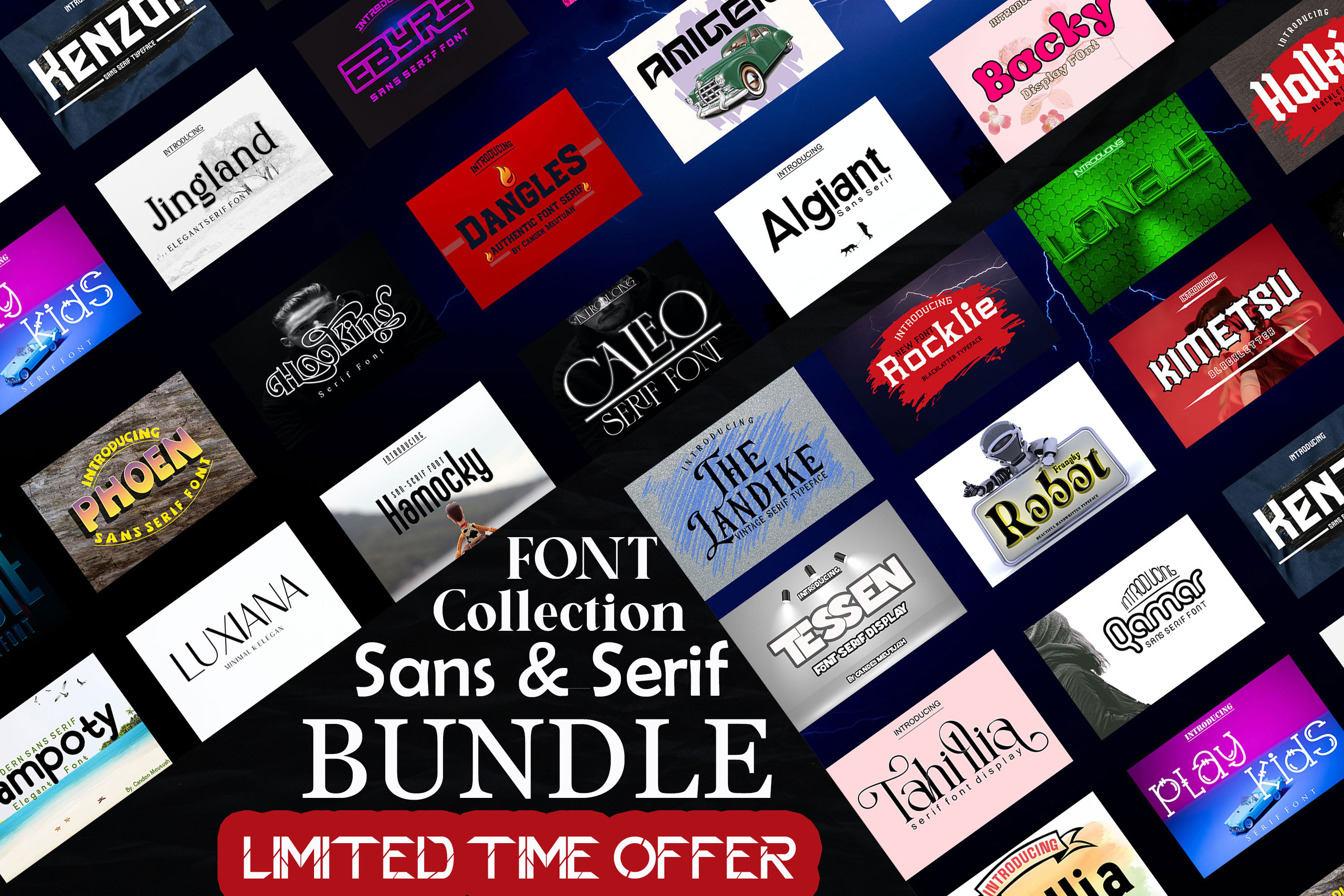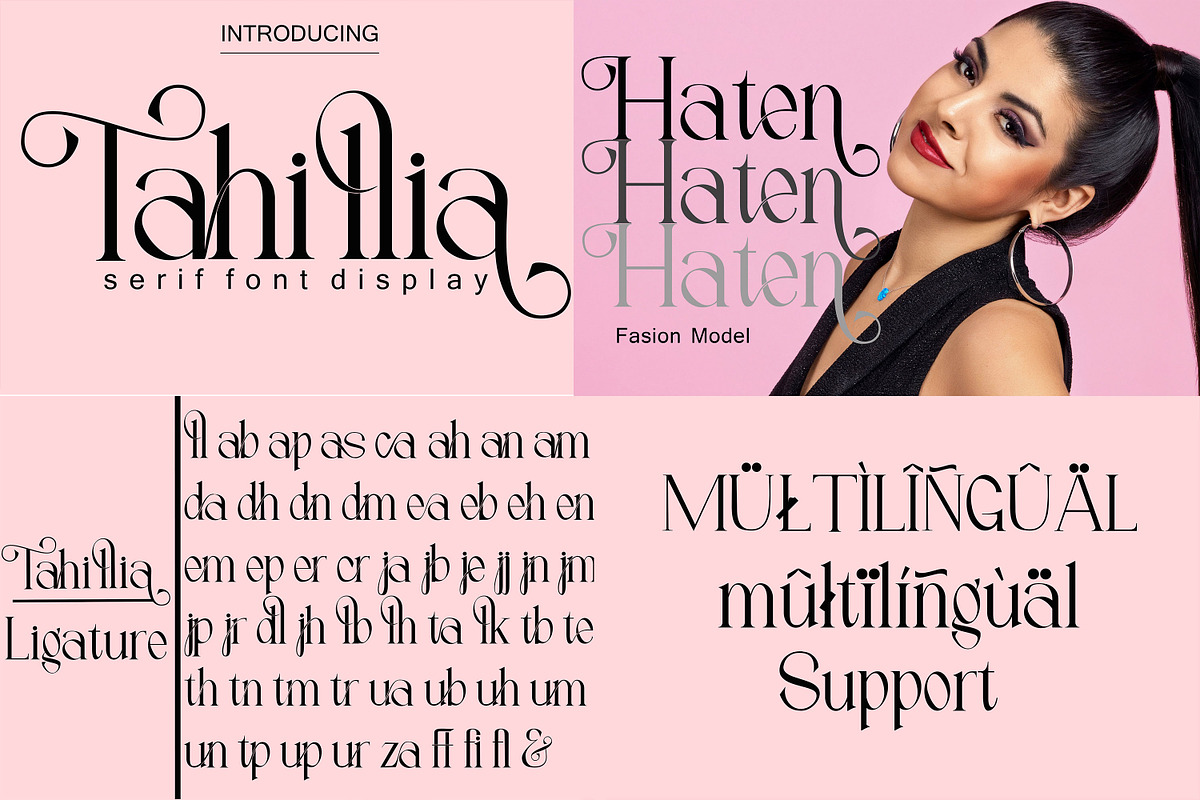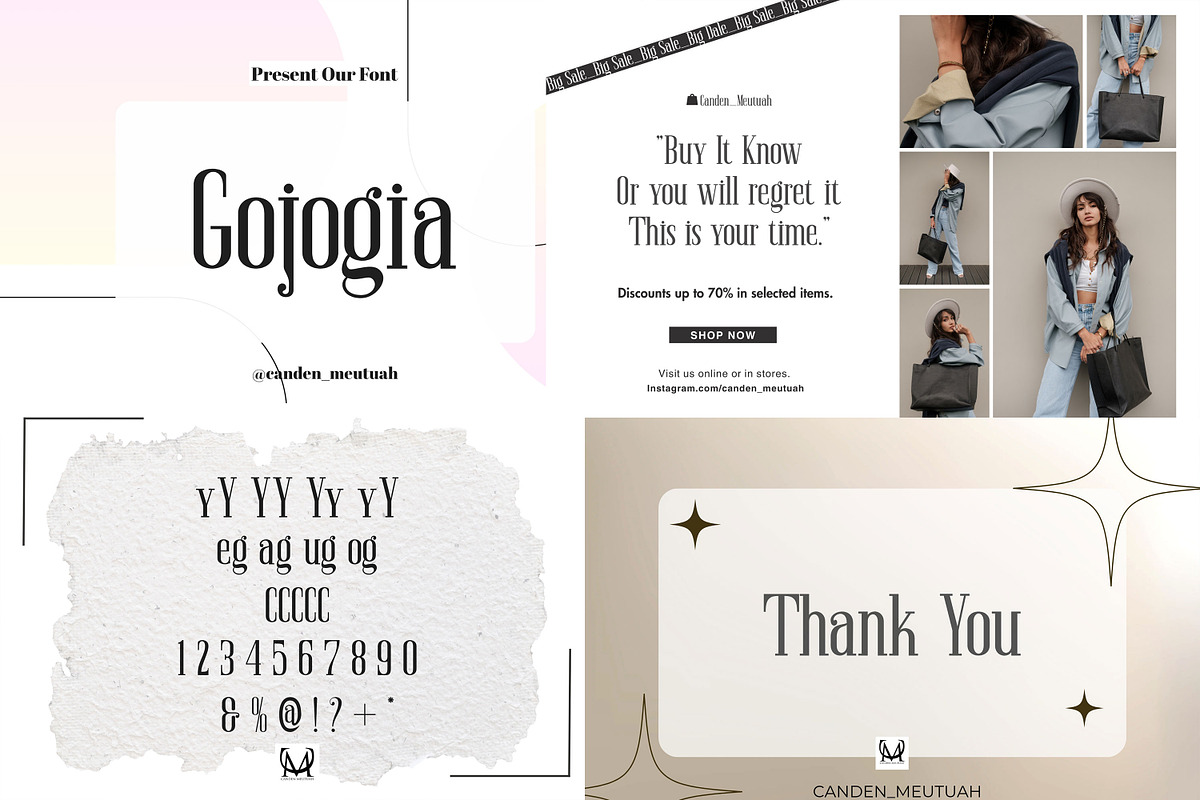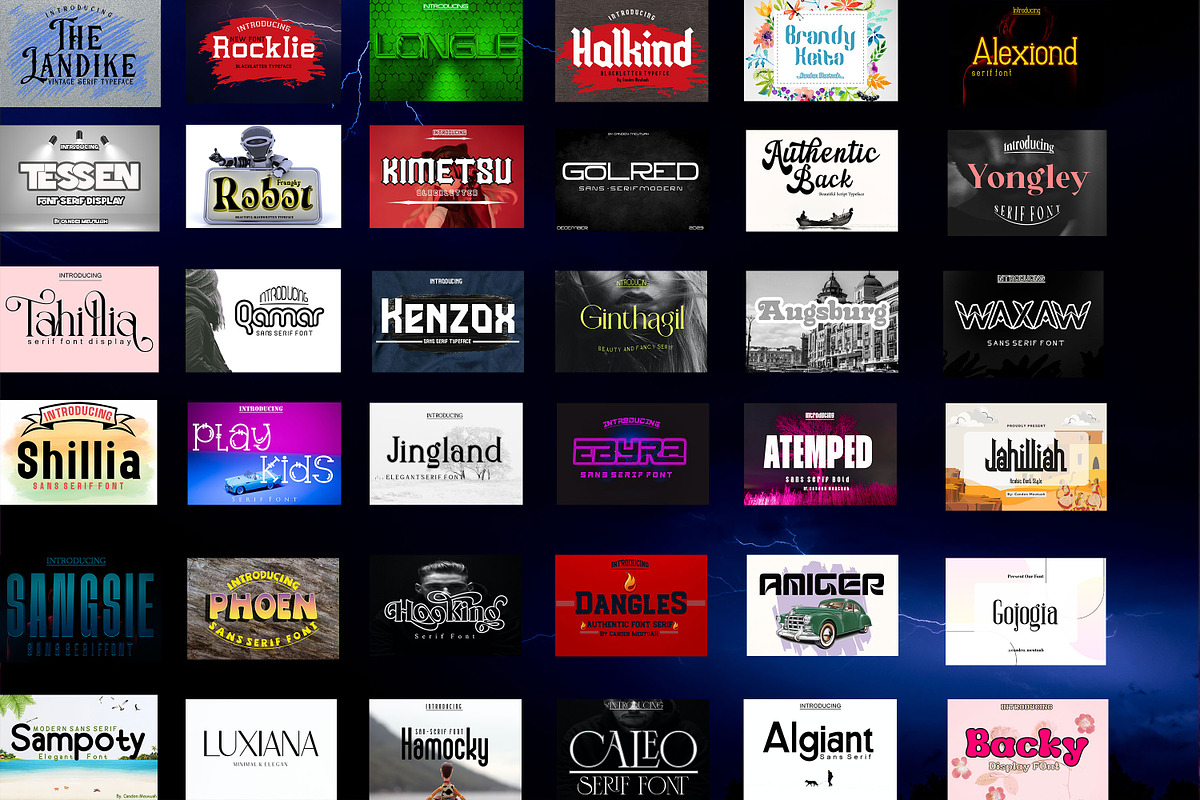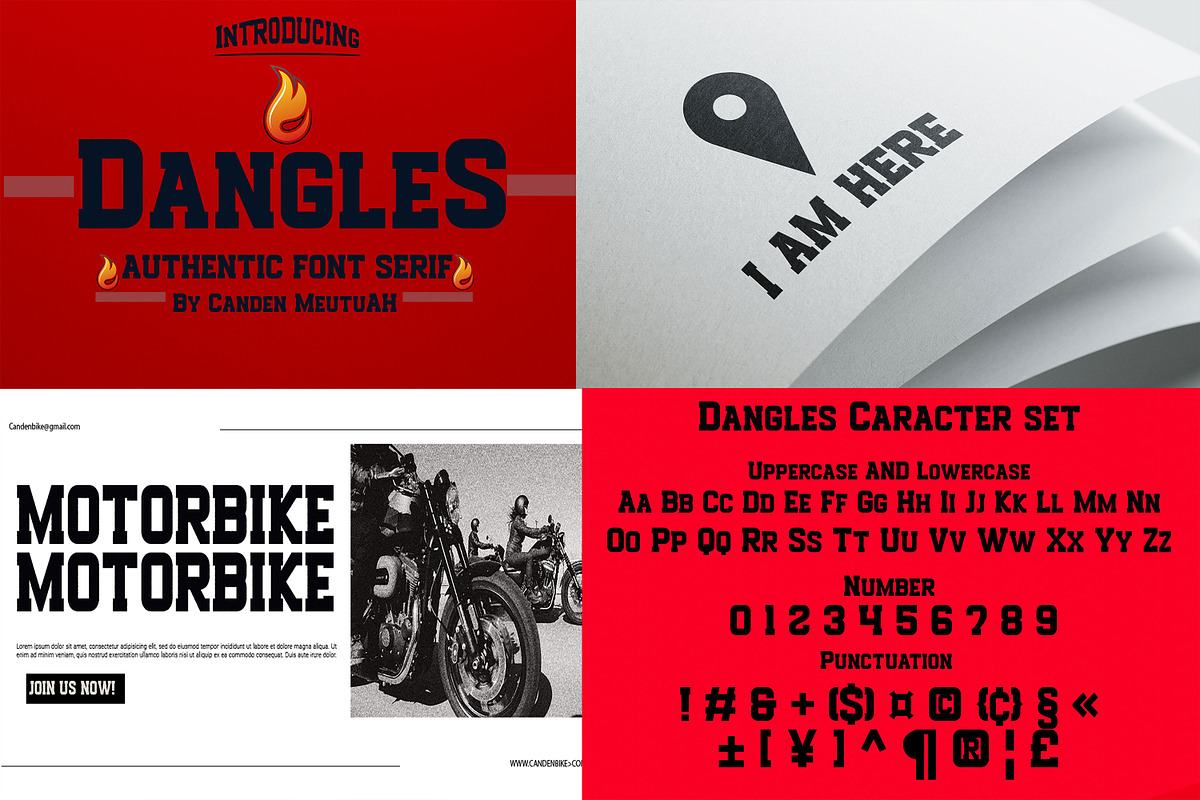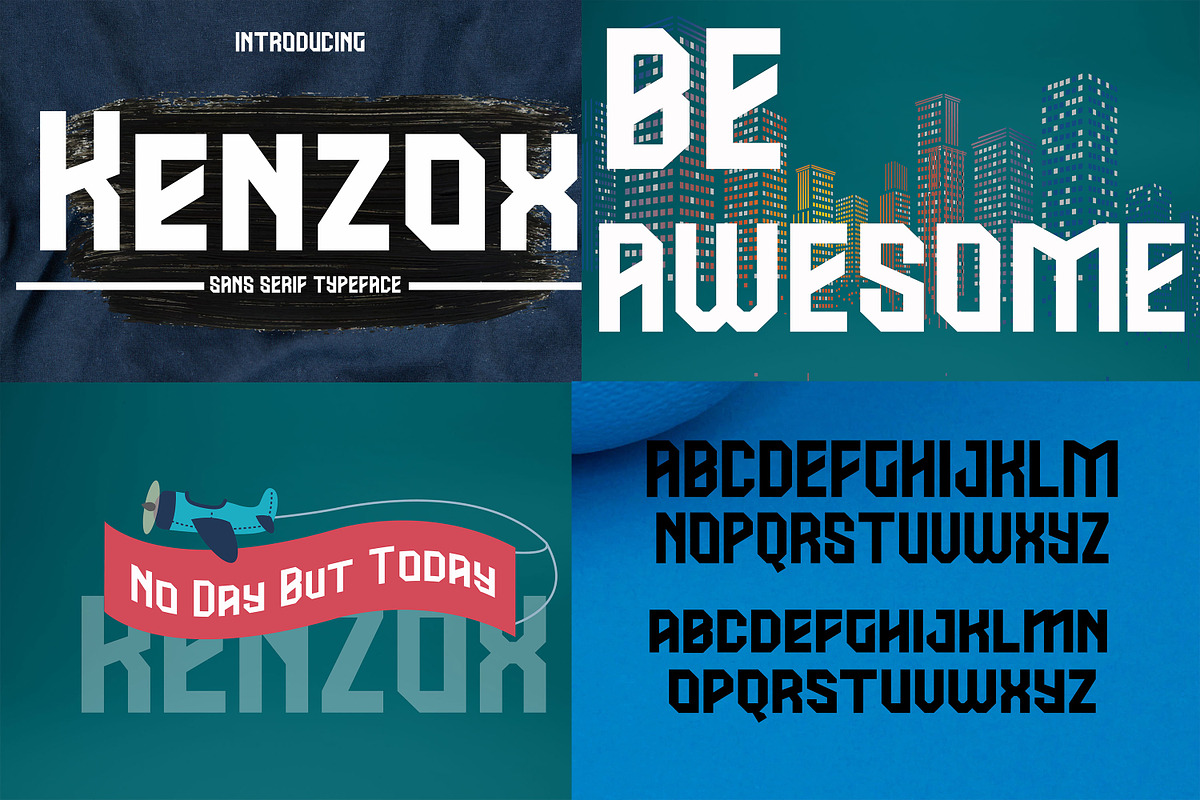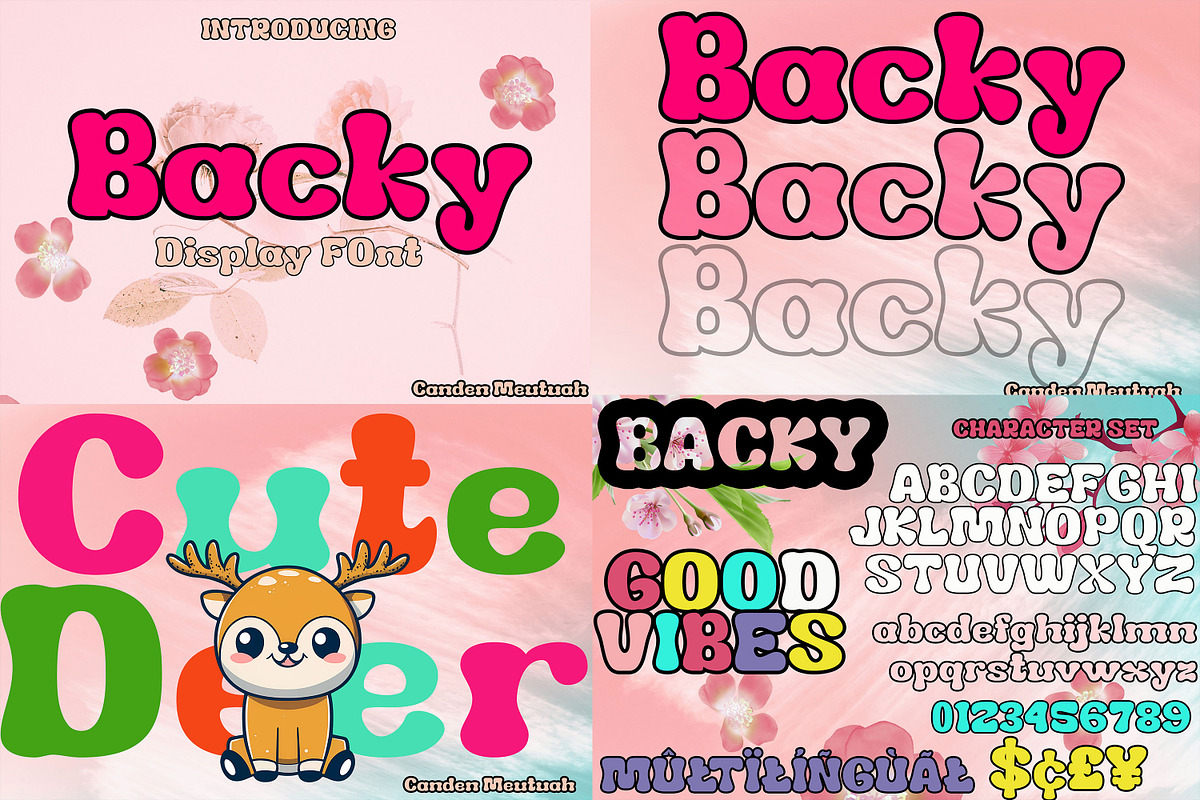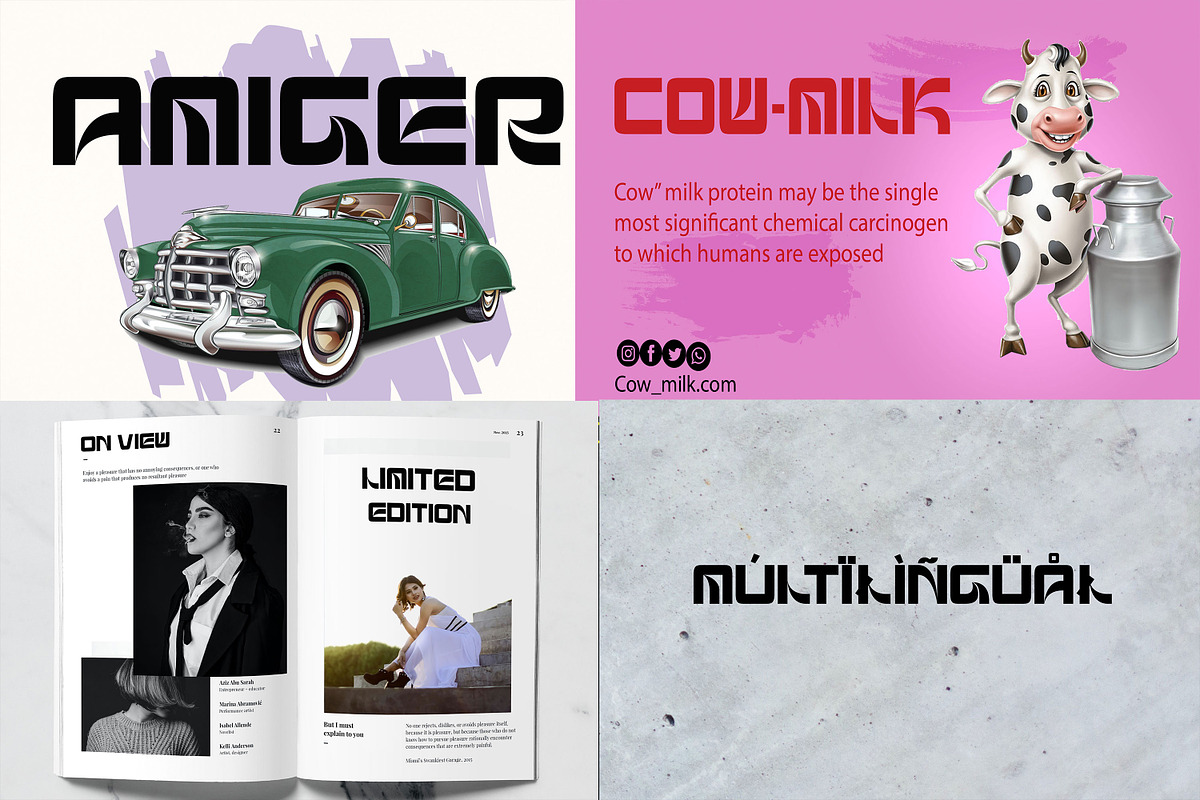
Font Collection Sans & Serif Bundles
Hi, friend! I'm happy to introduce you to my Sans & Serif Bundle - a collection of luxurious and stylish fonts. Get 36 handcrafted fonts from Canden Meutuah! This package includes every font they have ever created and this huge Collection can be purchased for a limited time for just $20! All fonts work perfectly for titles, logos, packaging designs, postcards, fashion, invitations, music covers, game posters, cinema, books, magazines, branding, wedding invitations, quotes, etc.
All fonts are available for Western European, Central European and Southeast European Languages and you can check your language typing characters in the text box above.